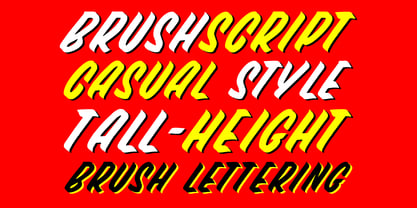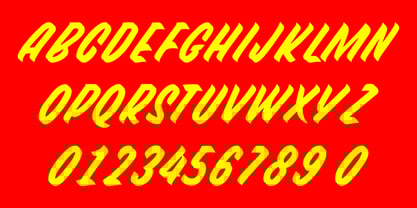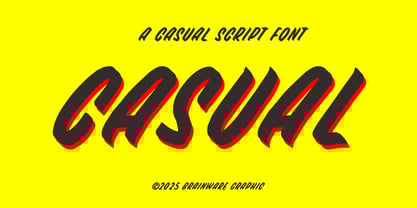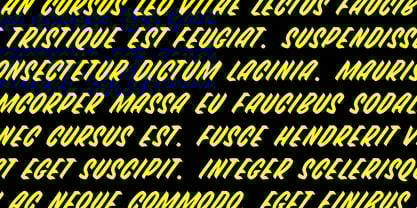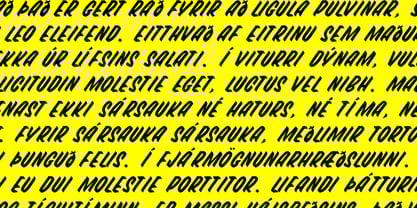
BG Casual
by Brainware Graphic
The BG Casual Font Family was designed by Muhammad Jauhar Azmi and published by Brainware Graphic. BG Casual contains 1 styles. More about this family
BG Casual is a casual brush script font with bold and strong stroke, clear tall slanted face. suitable for sign lettering, sign painting and any vintage design. perfect for branding and vintage traditional identity design, campaign and any design project. this font has a clear readability and good compatibility for visualizing vintage concept and design.
Designers: Muhammad Jauhar Azmi
Foundry: Brainware Graphic